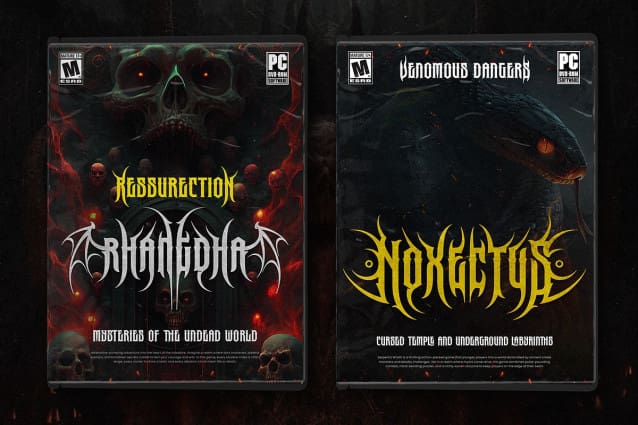
Megaroom Font
Megaroom Font, the ultimate modern death metal font designed to dominate your creative projects. This aggressive and edgy typeface channels the raw energy of death metal while maintaining a modern, gamer-inspired aesthetic.
Whether you’re creating artwork for a brutal band logo, designing a fierce gaming interface, or crafting visuals that scream intensity, Megaroom’s sharp edges, jagged forms, and bold strokes will deliver a powerful punch.